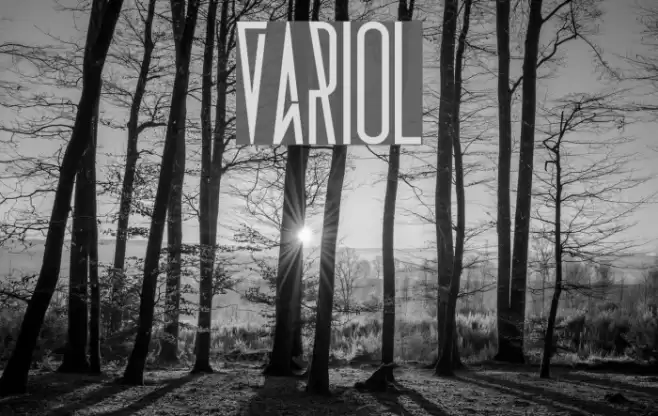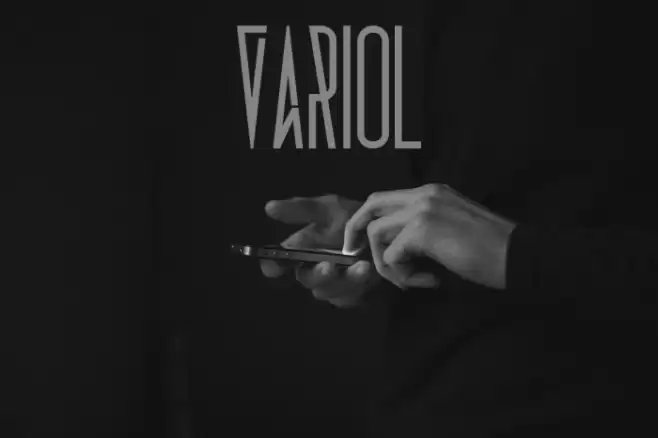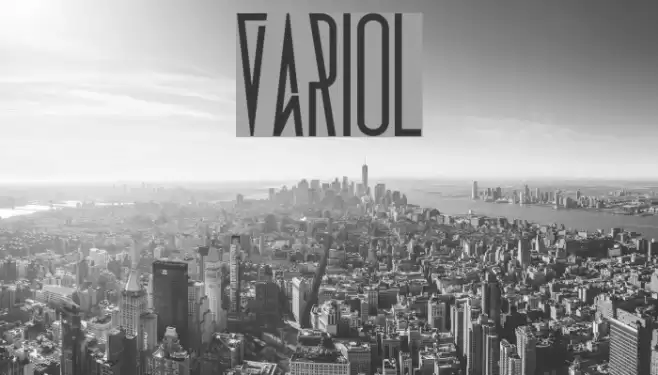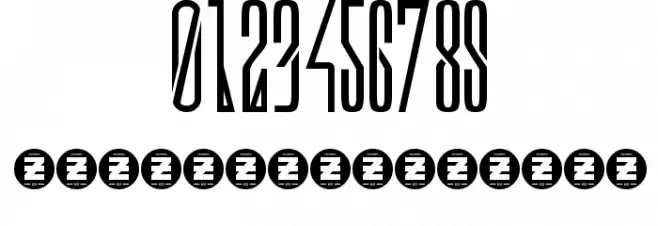
Variol Font
Variol Description
This font features a highly decorative and geometric style, characterized by its elongated and narrow letterforms. The uppercase letters are particularly striking, with sharp angles and a futuristic feel. The lowercase letters maintain a consistent design, complementing the uppercase with a similar angular aesthetic. Numbers follow the same stylistic approach, ensuring uniformity across all characters. The special characters are uniquely designed, adding to the font's overall distinctiveness. This font's bold and artistic nature makes it ideal for projects that require a strong visual impact.
A decorative, geometric font with elongated, angular letterforms from Uncategorized fonts.
- Proposed Projects: Ideal for posters, album covers, branding, and any project needing a bold, artistic touch.
- Character Spacing: Tight